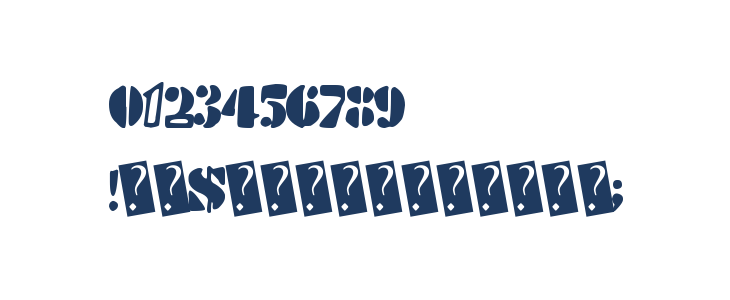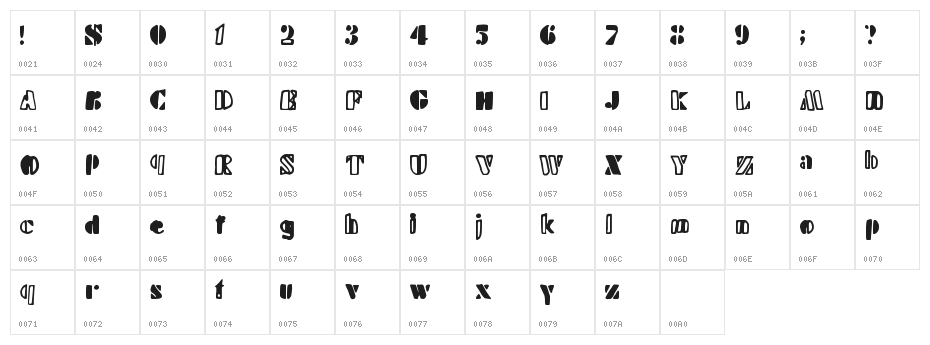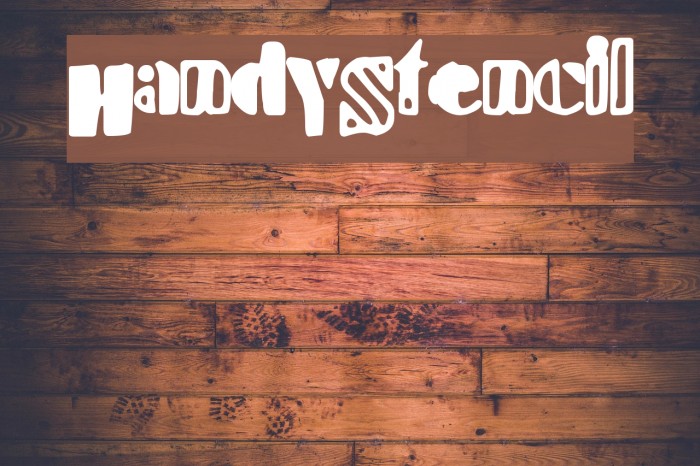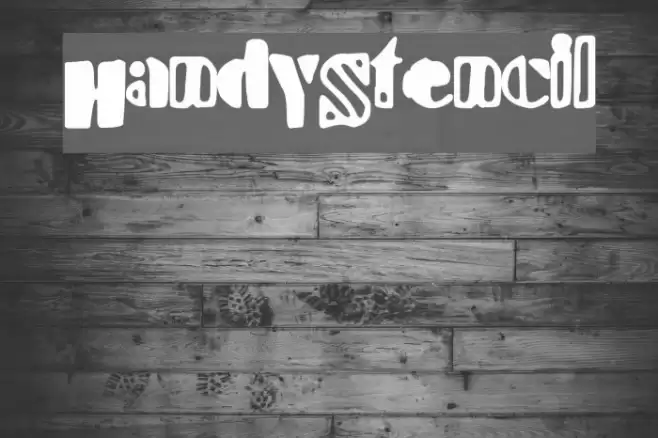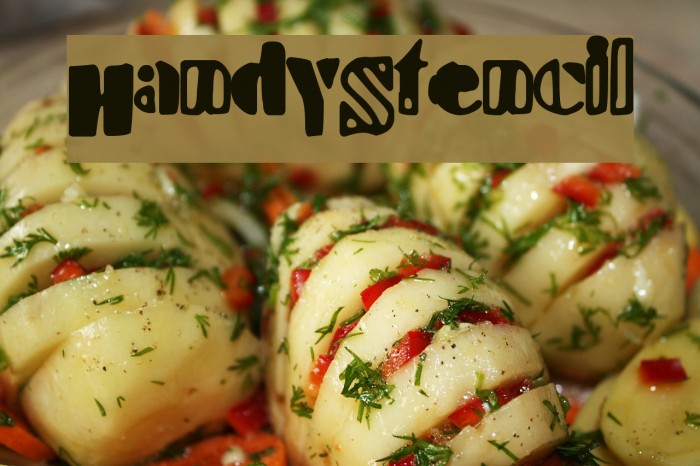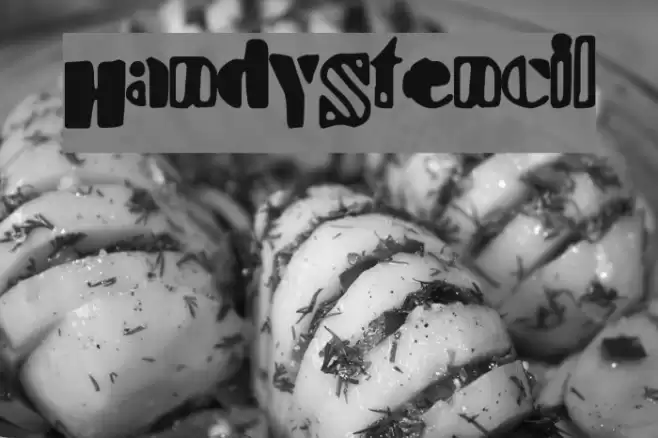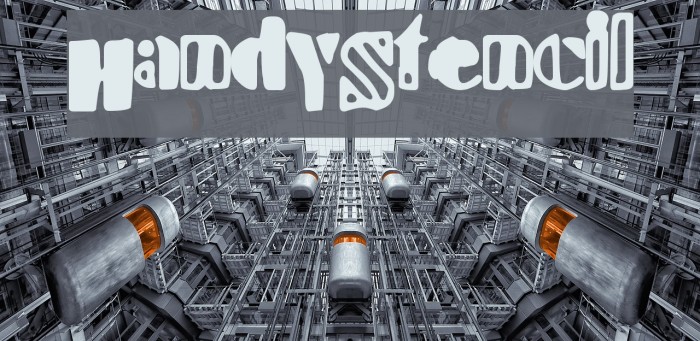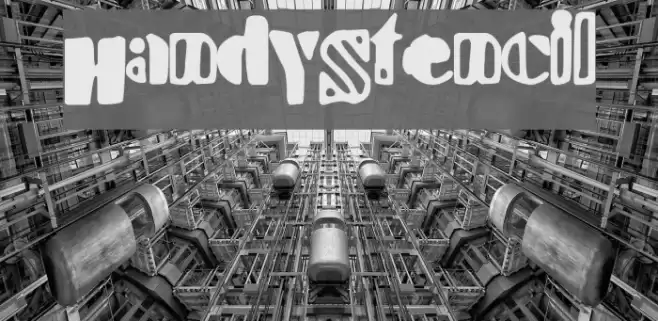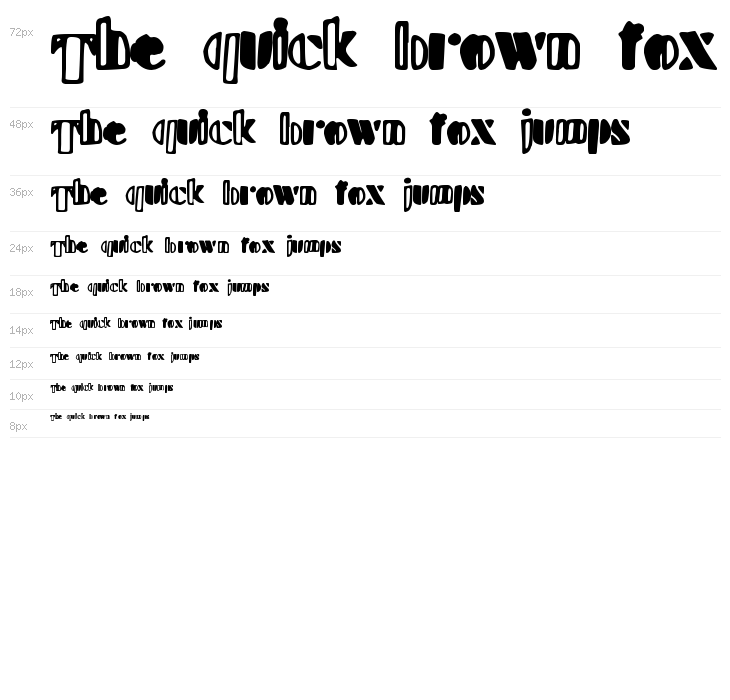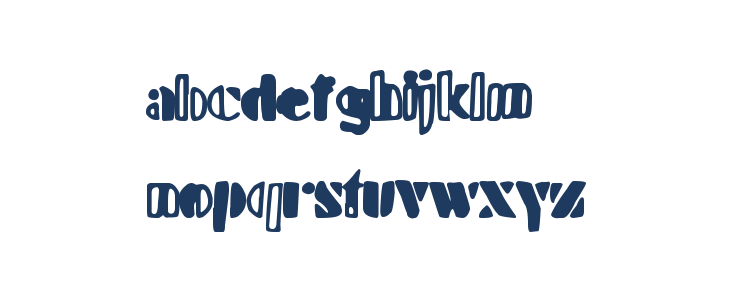
HandyStencil Font
HandyStencil Description
This font features a bold and playful stencil design, characterized by its thick, rounded shapes and cut-out sections that create a dynamic and eye-catching appearance. The uppercase letters are particularly striking, with a strong presence that makes them ideal for attention-grabbing headlines. The lowercase letters maintain the same playful style, ensuring consistency across different text elements. Numbers and special characters are designed with the same boldness, making them suitable for a variety of creative projects. The overall look is both modern and retro, offering a unique blend of styles that can add a distinctive touch to any design.
| Overall Style | Modern, Retro |
| Proposed Projects | Ideal for posters, branding, packaging, and any project requiring a bold, eye-catching typeface. |